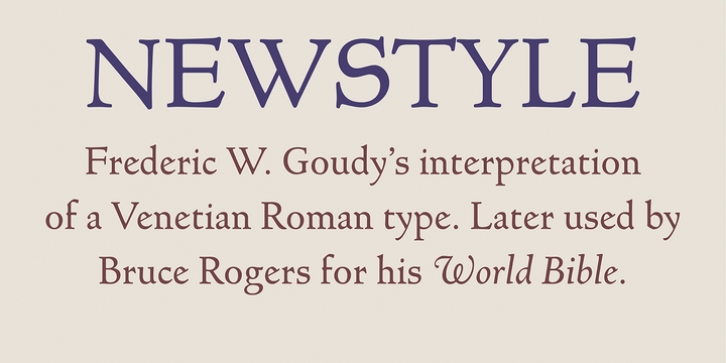
Newstyle was designed by Steve Matteson and published by Matteson Typographics. Newstyle contains 2 styles and family package options.
Goudy's Newstyle typeface was desiged in 1921 began as an experiment in creating a phoentic alphabet with different shapes for letters depending on their unique sound. The design is strongly influenced by the Venetian Romans of Aldus which Goudy believed to be the most readable letterforms. Steve Matteson digitized the roman faithfully to Goudy's original and designed the companion italic in the spirit of Goudy's style.
Newstyle Regular·